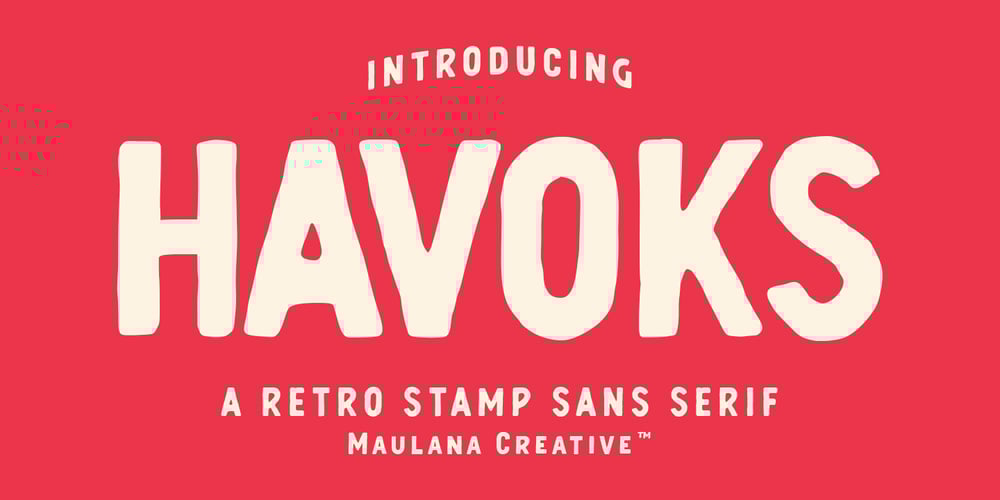
Havoks Font Family was designed by Gilang Maulana and published by Maulana Creative. Havoks contains 1 styles and family package options. Havoks is a Hand-lettered font inspired by the vintage 70’s sign board, music, shop and movies, it has a rough stroke outline and then we fill it. Havoks includes opentype features Ligatures. It support multilingual more than 100+ language. This font is good for logo design, Movie Titles, Books Titles and any awesome project you create. Make a stunning work with Havoks Rough sans font. Cheers, Maulana Creative